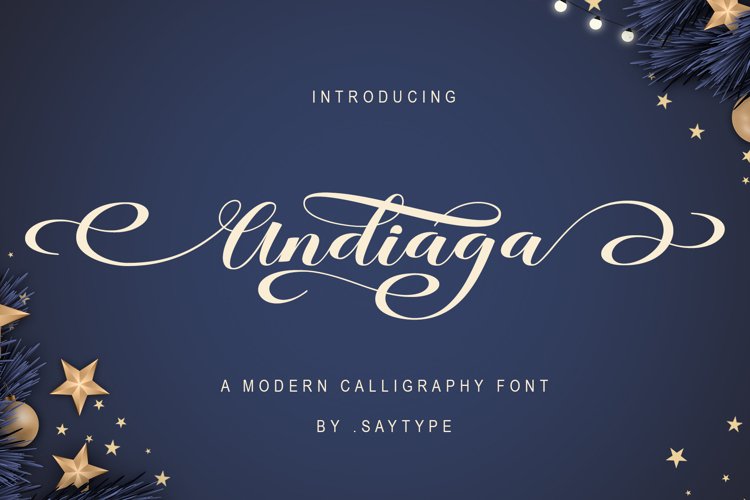
I also offer a number of alternative styles suitable for many letters. This font style is perfect for various designs of your work, such as invitations, labels, restaurant menus, logos, fashion, makeup, stationery, novels, magazines, books, greeting / wedding cards, packaging, labels and others.
Andiaga Script has 454 glyphs and 259 alternative characters, including various language support. With OpenType features with alternative styles and elegant ties. The OpenType feature does not function automatically, but you can access it manually and for the best results needed for your creativity in combining variations of this Flying Machine.